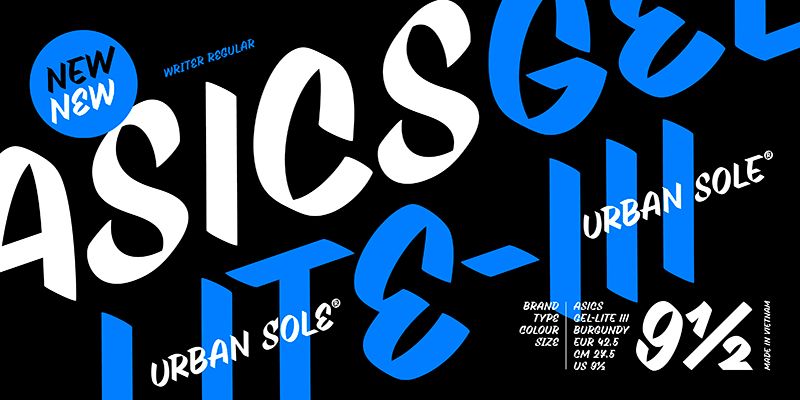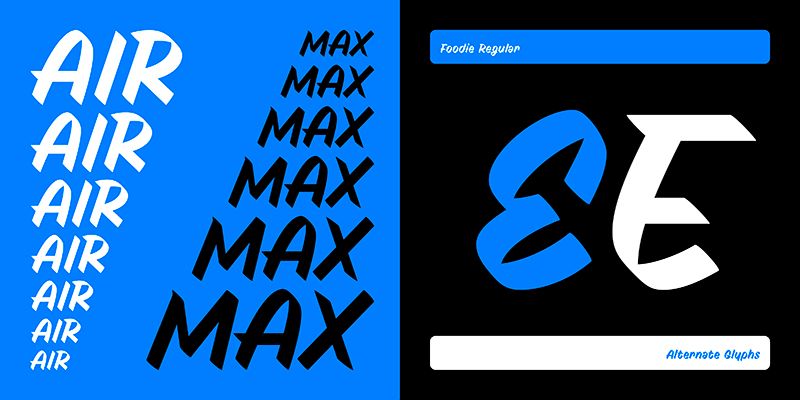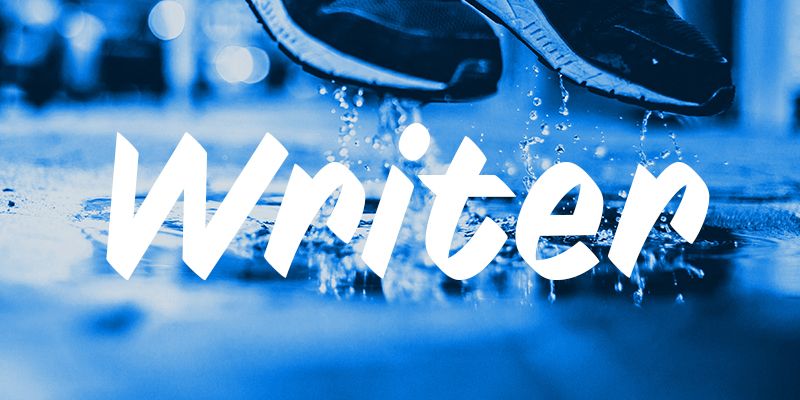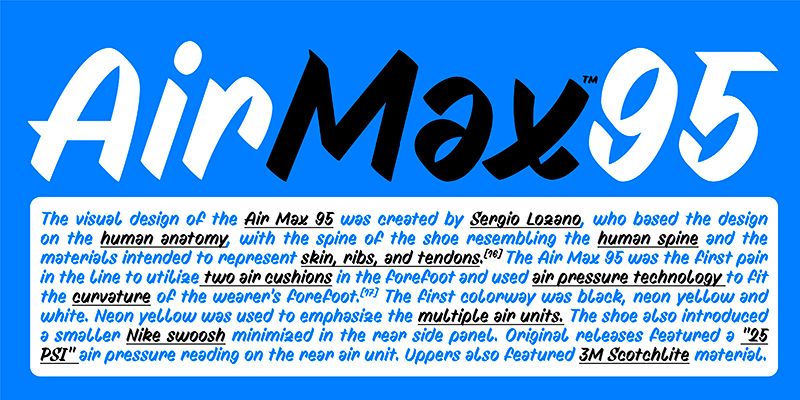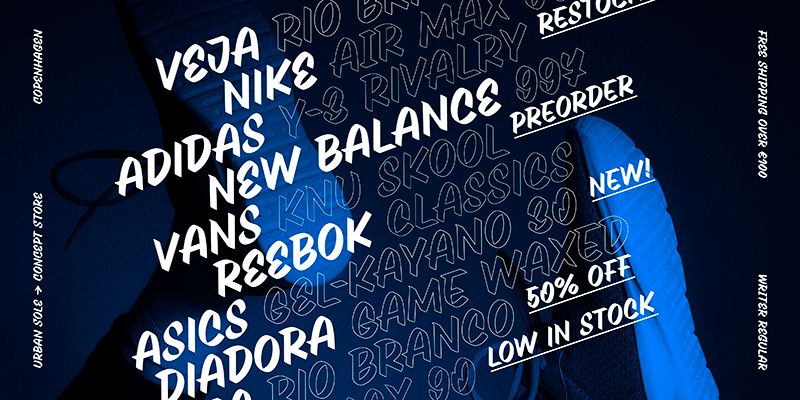
This versatile script is inspired by sign writing and offers a range of styles from geometric to free-hand. Ideal for hand lettering of menus, signs and boards. Writer is an unconnected script typeface written with a flat felt tip marker. The bevelled tip is natural for calligraphy. It allows for better grip ergonomics and a more flexible slant in the fingers and wrist. All the glyphs can be written in two or three brisk strokes at first, and by gradually simplifying the shape, adding speed, and increasing confidence in writing, the script can be brought to a form where each letter is written with only one single stroke. This also changes the character of the typeface: from the more geometrically austere through the freely written to the calligraphic. I chose the first rigid one to serve as a guide so that everyone can further adapt to their writing style. The final calligraphic form is up to the author and represents one way they can develop the hand-out.